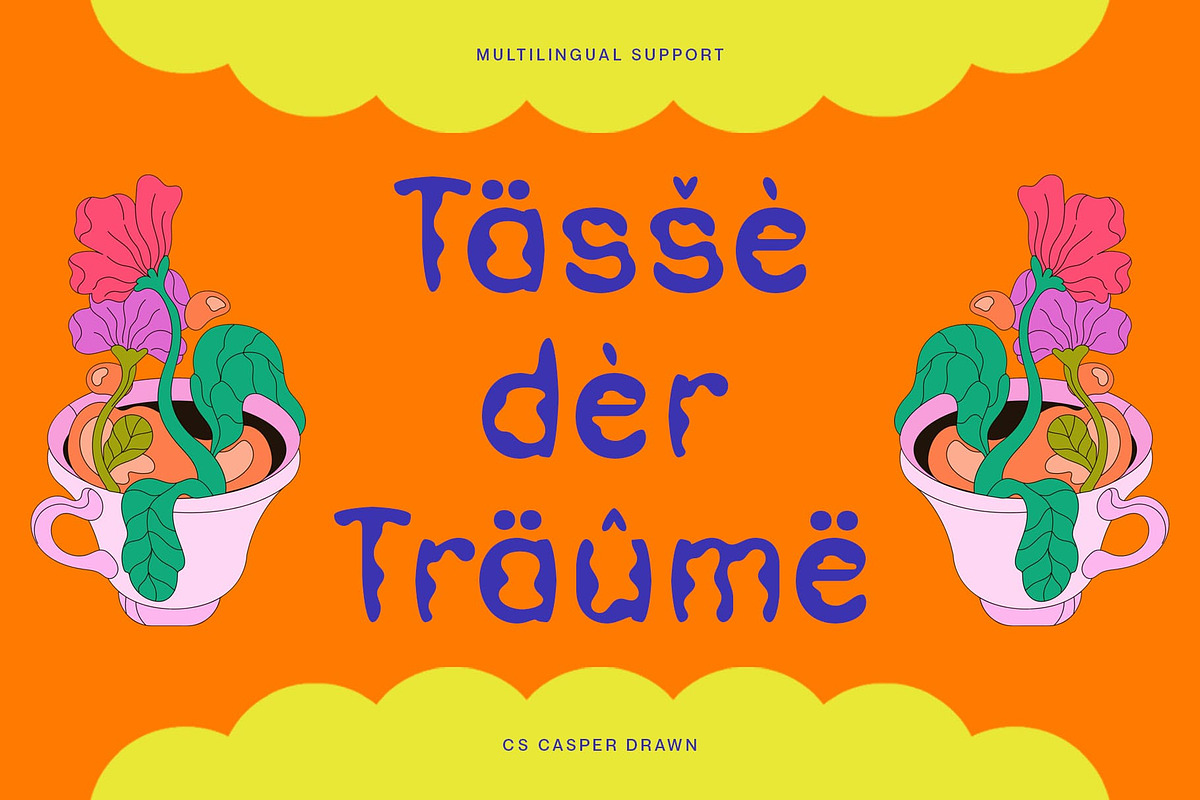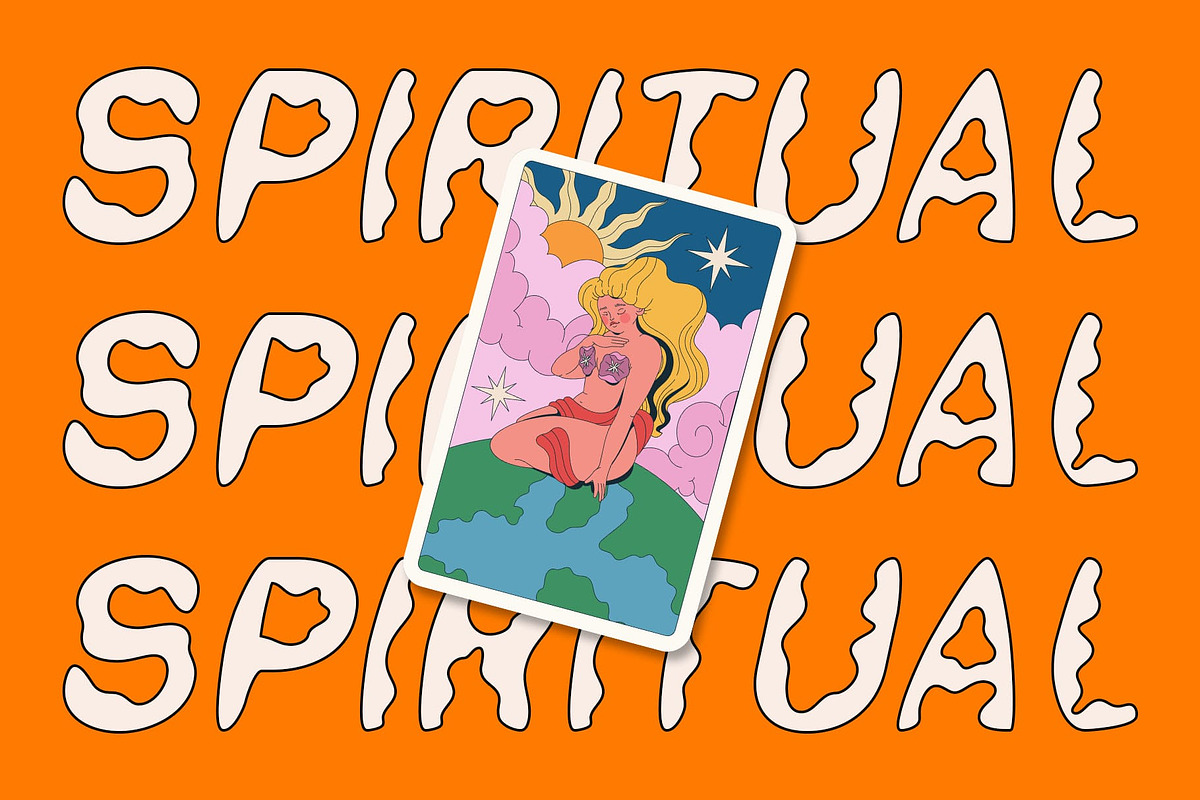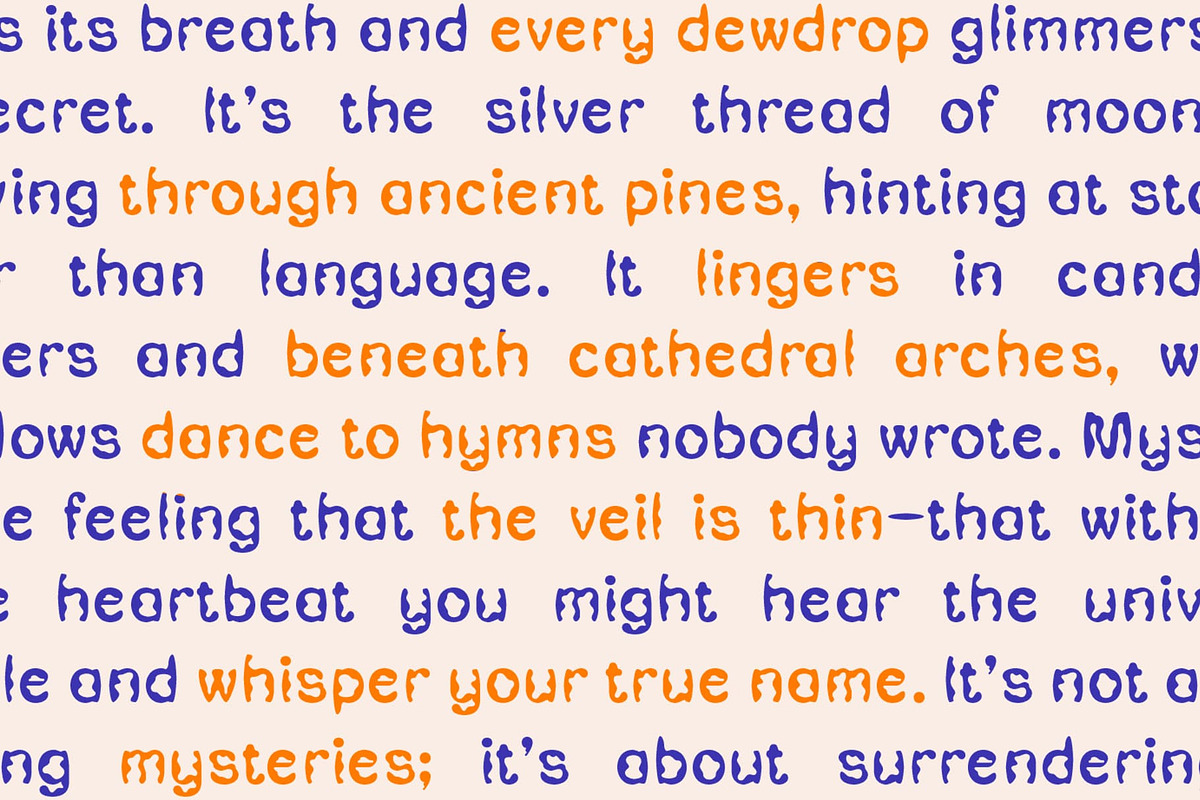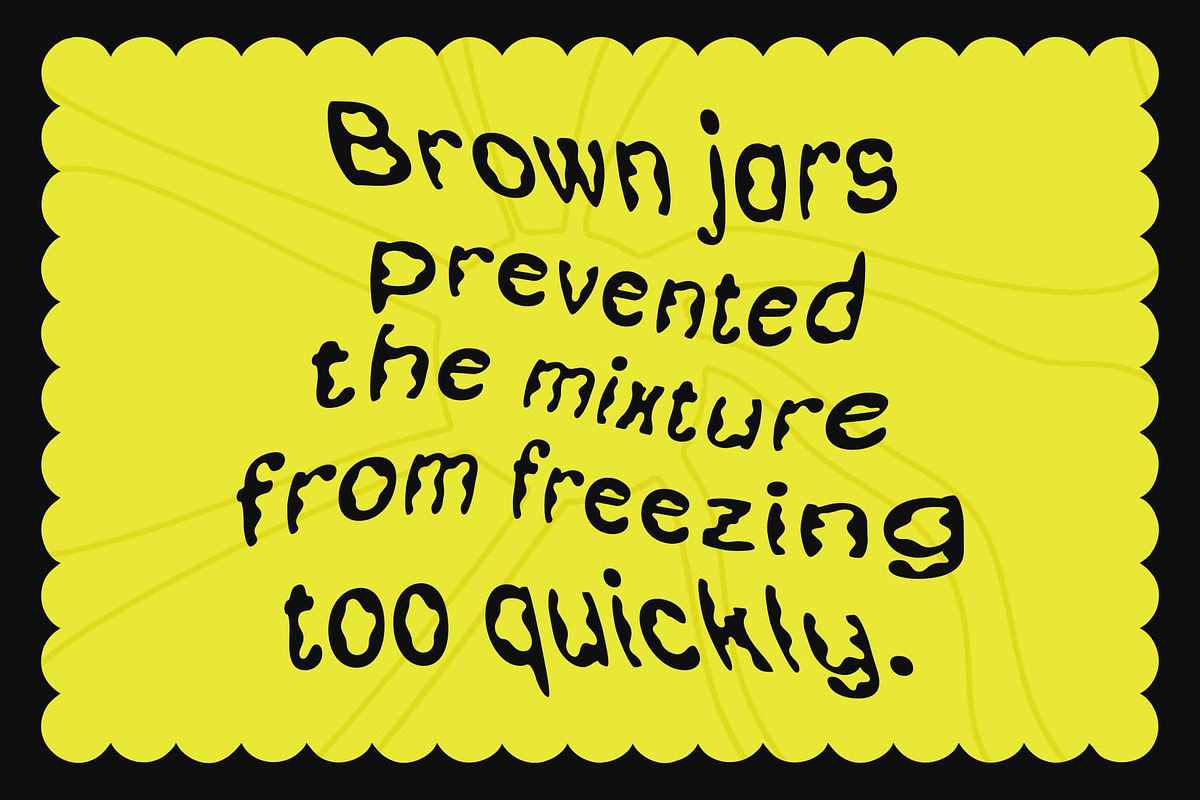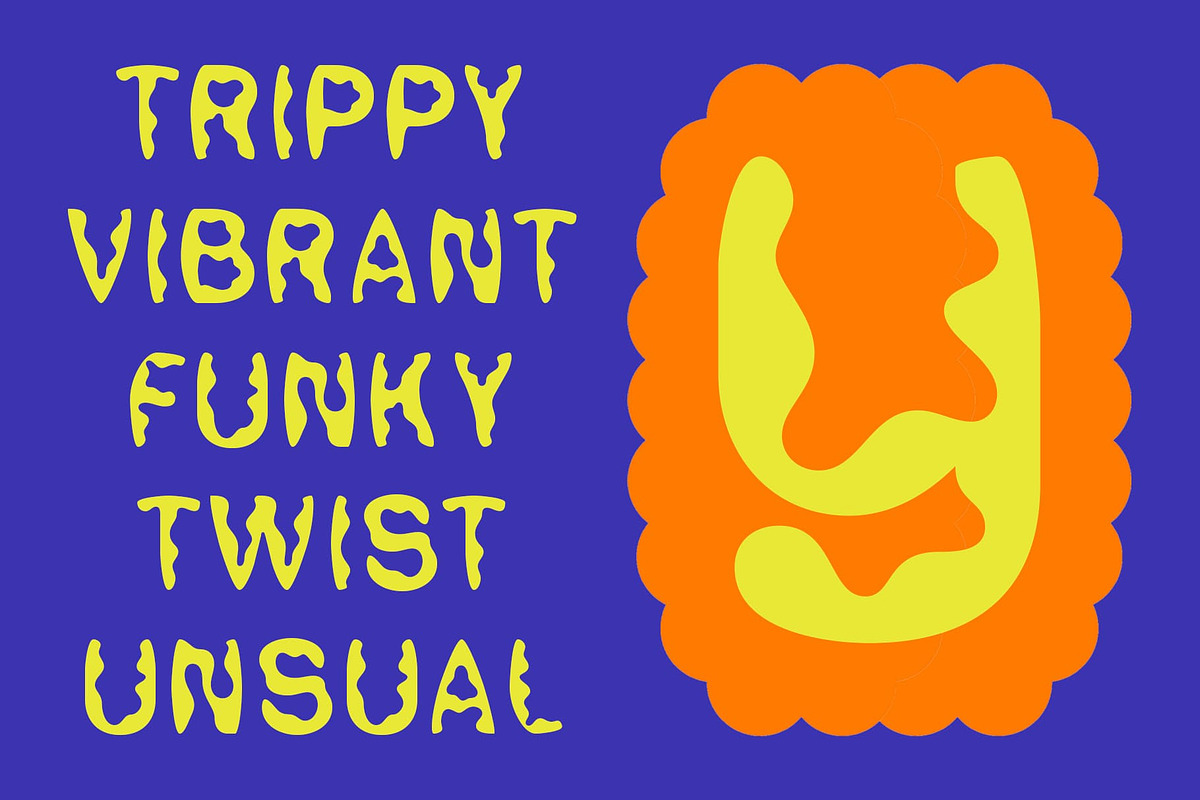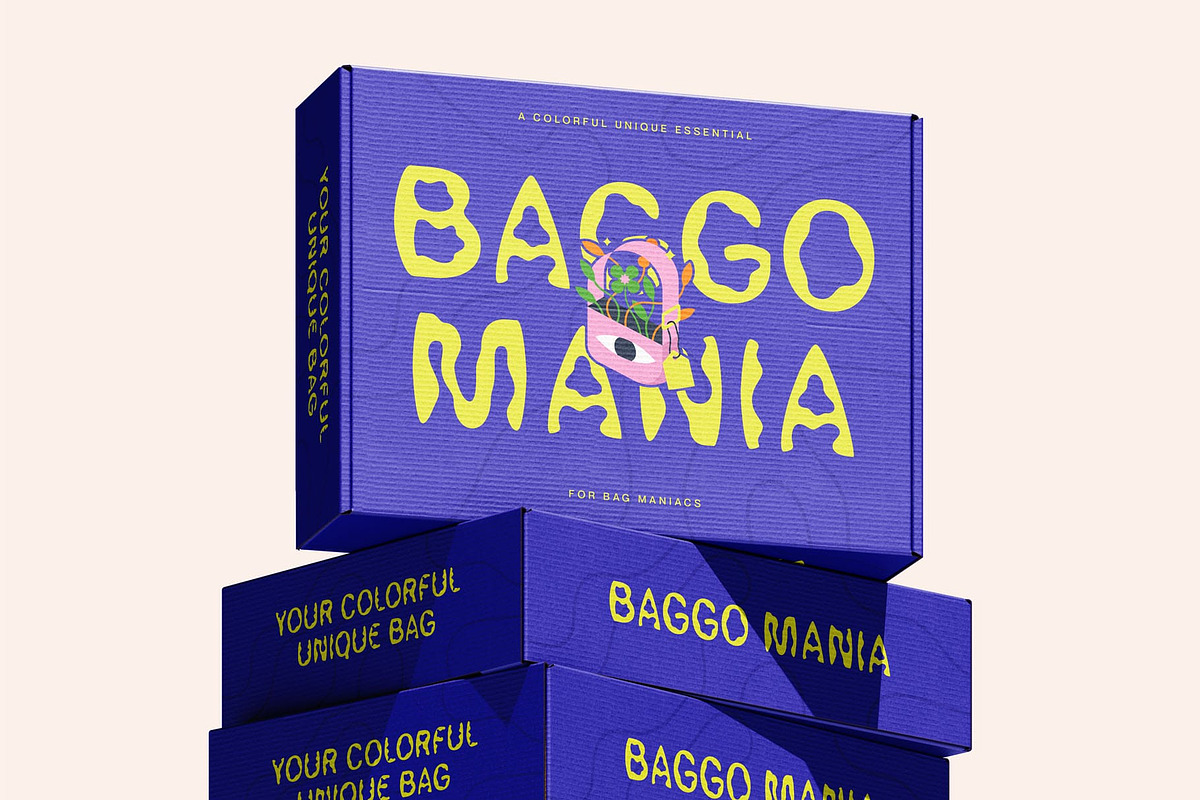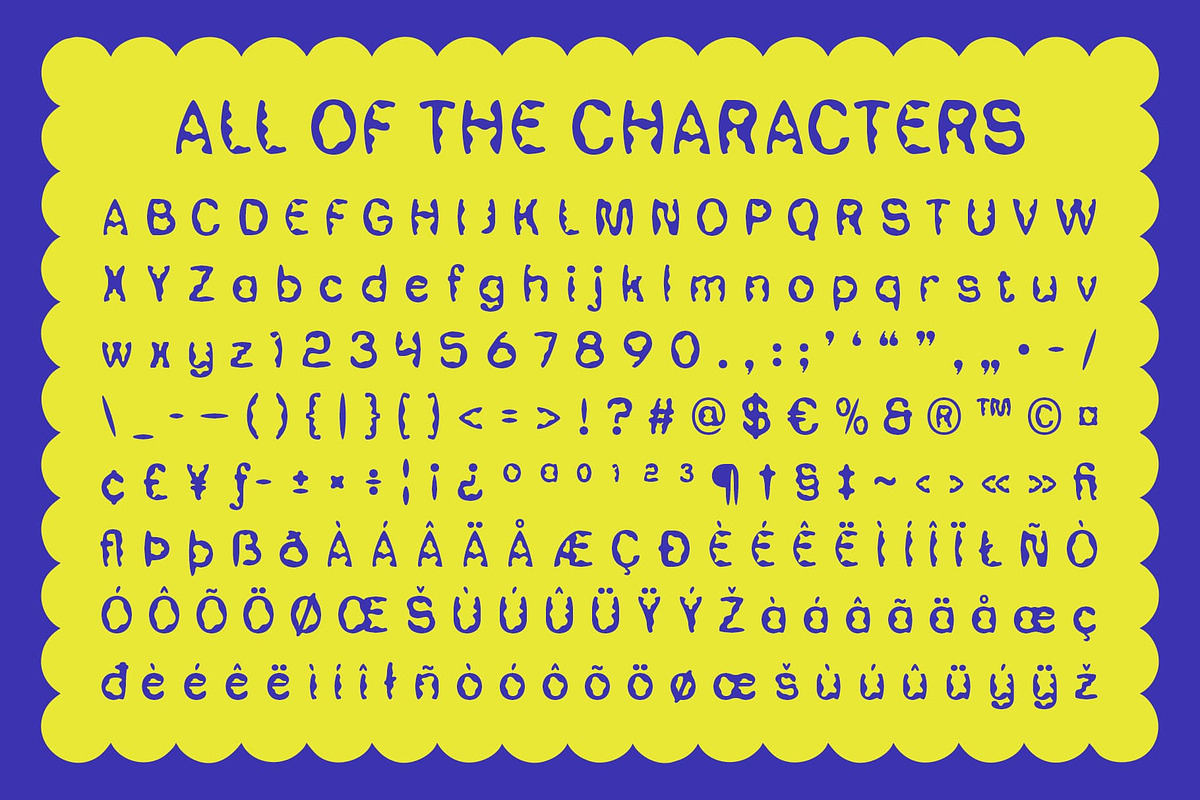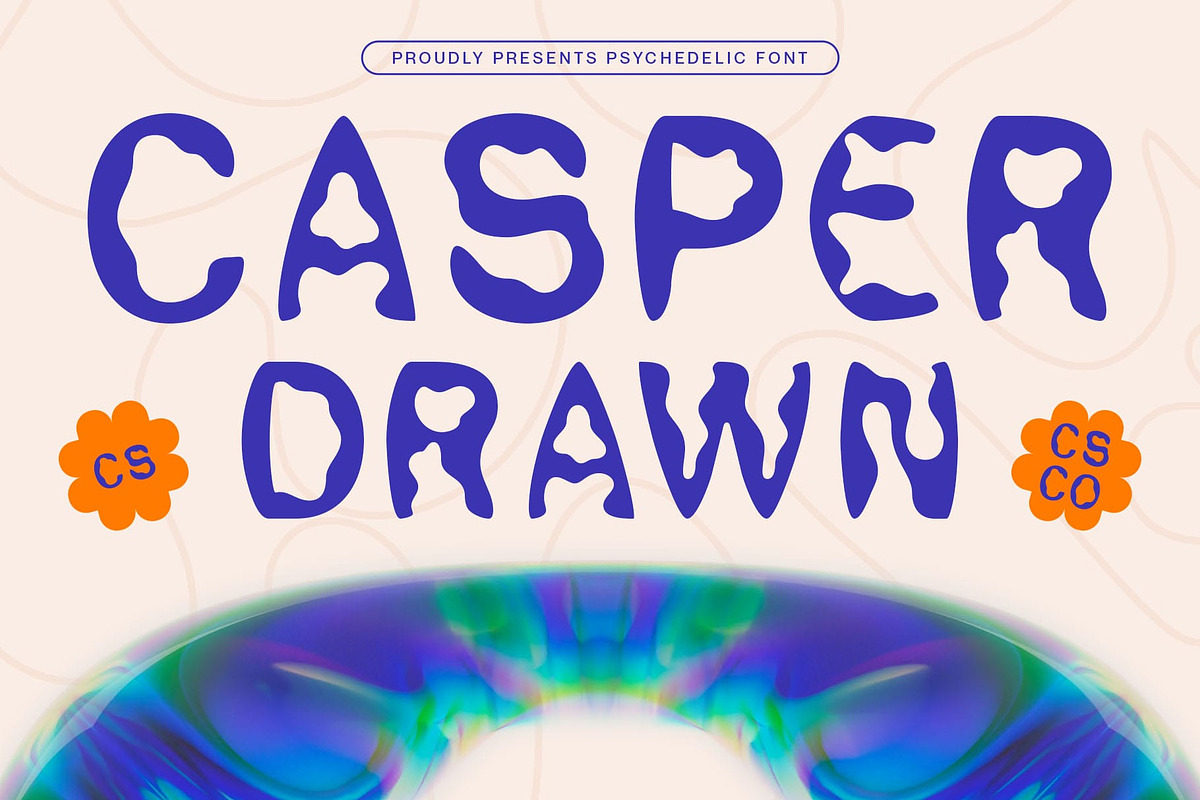
CS Casper Drawn
CS Casper Drawn – Where Psychedelia Meets Modern Minimalism
Funky Letterforms with Contemporary Balance This font is a modern display sans serif font that merges the clean geometry of minimalism with the fluid, imaginative spirit of psychedelic design. Its unconventional letterforms flow with a playful rhythm, creating a funky and cheerful vibe that radiates positivity and creativity.
Drawn Effect for Artistic Personality The font is enhanced by a unique drawn effect that mimics hand-drawn strokes, adding an expressive, handcrafted quality. This artistic touch softens its structured base, giving each letter a personal and organic feel that enhances visual interest and uniqueness.
Cheerful, Expressive, and Full of Energy With its upbeat design and dynamic curves, this trippy font brings an energizing tone to any project. It’s ideal for visuals that seek to be both clean and characterful—balancing modern order with a free-spirited aesthetic that captures attention and invites curiosity.
Perfect for Music, Art, and Creative Branding Whether used for music posters, creative branding, art festivals, or expressive editorial layouts, this cheerful font stands out with its unique blend of modern clarity and artistic flair. It’s the perfect choice for designers aiming to communicate a fresh, experimental, and joy-filled identity.